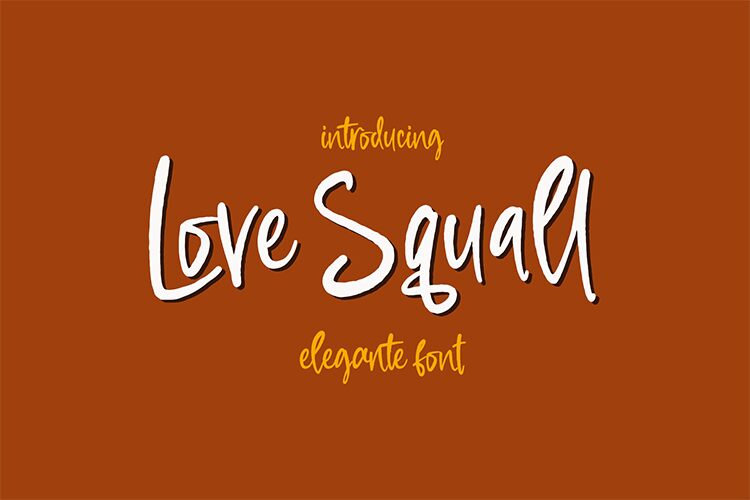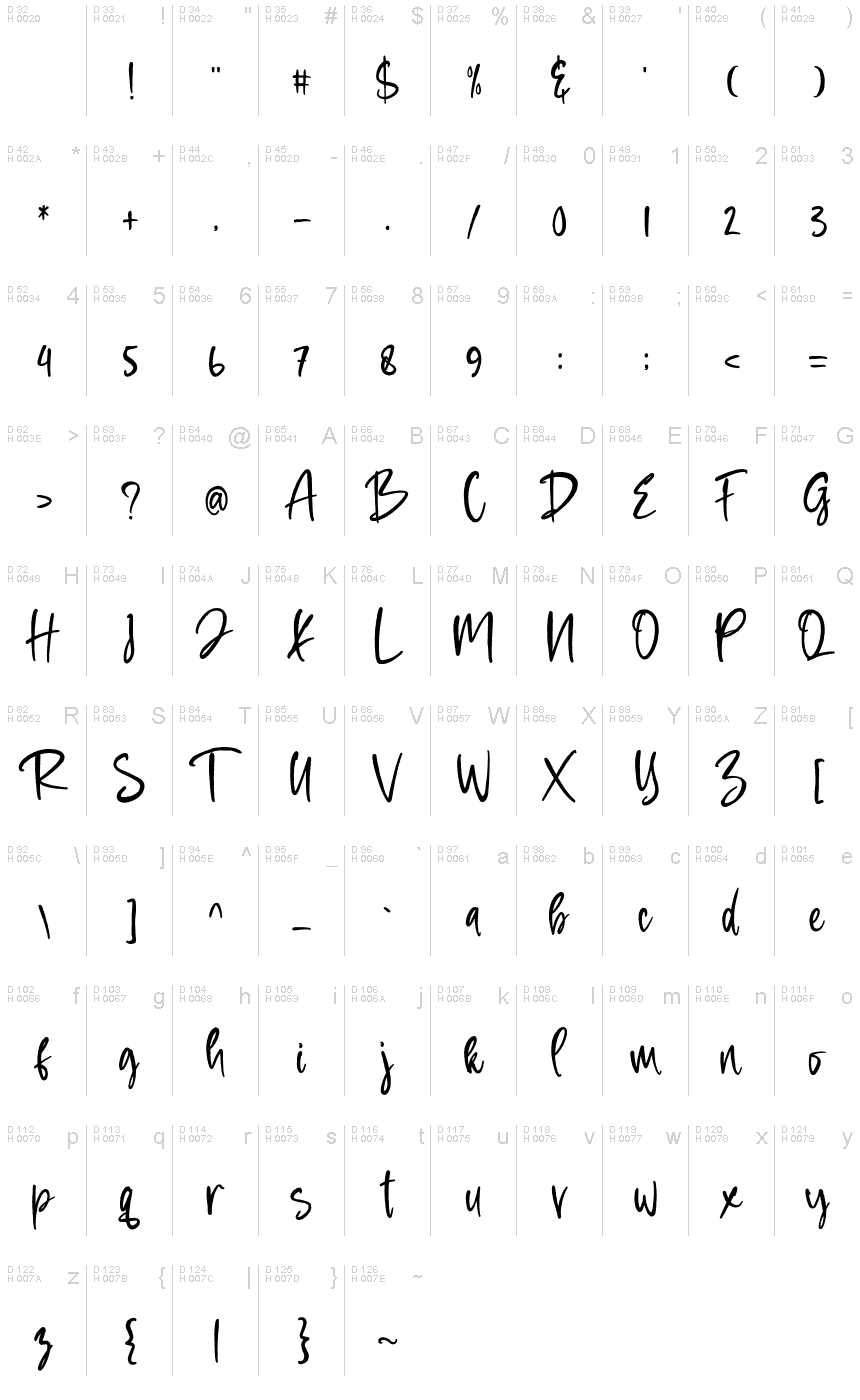
Love Squall
Love Squall, a handwritten script font by Fadhil, is perfect for adding a personal touch to projects. With its narrow width and stylish design, this font is ideal for creating handwritten invitations, logos, and titles.